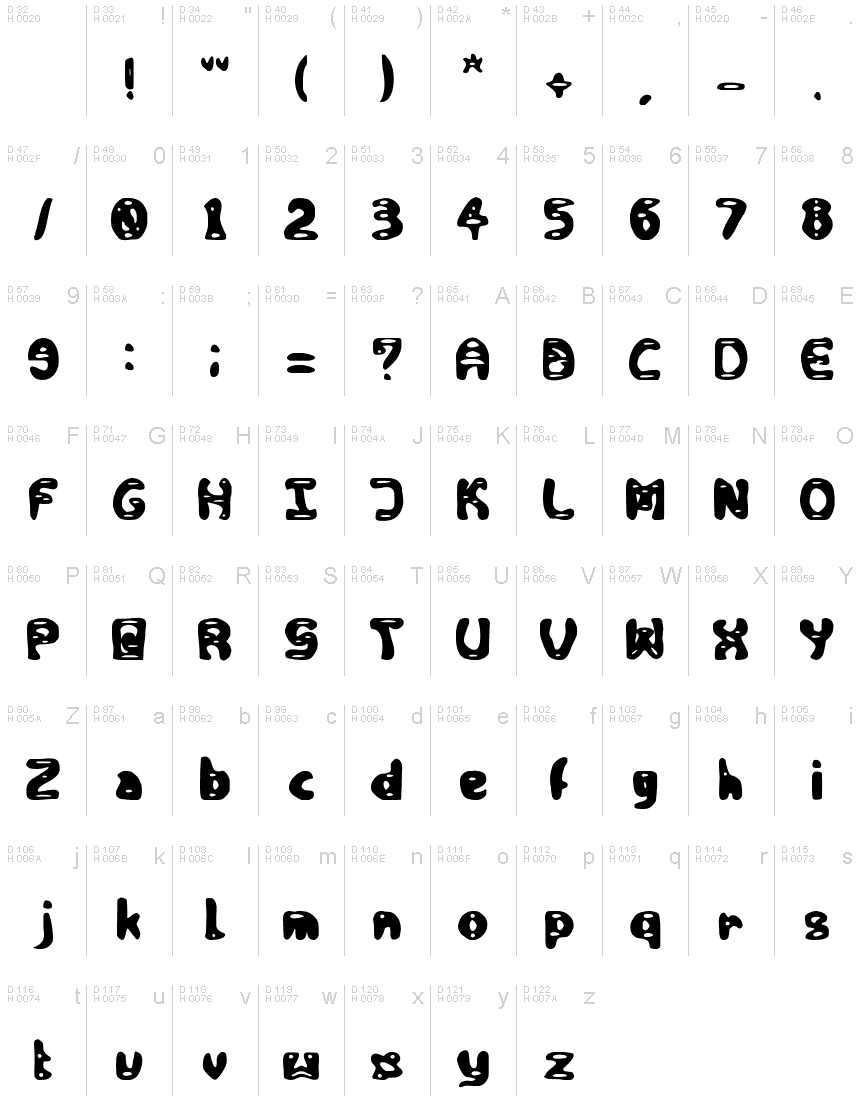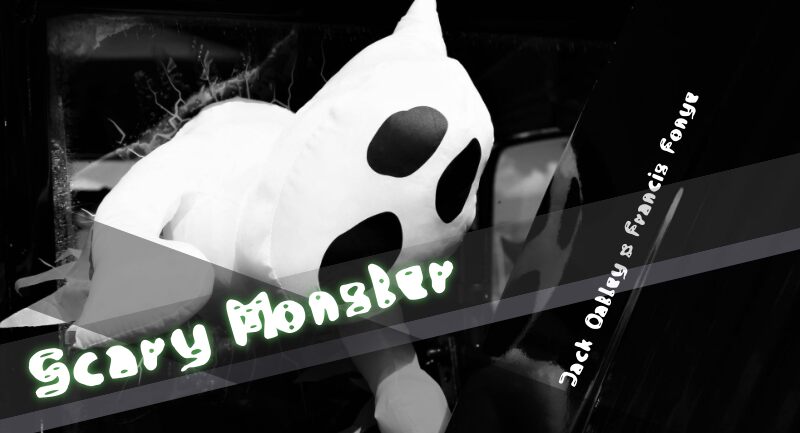
Scary Monster Regular
This font "Scary Monster" is created by Jack Oatley & Francis Fonye.
This font is inspired by Big Monster & Little Monster, fonts previously created by Jack Oatley, which have been revised by Francis Fonye to give it a new look.